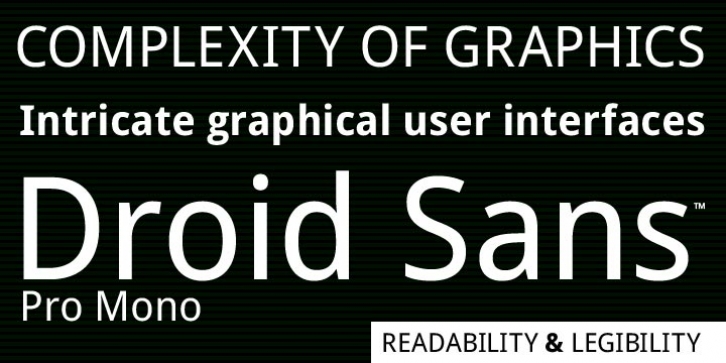
Publisher: Ascender
Droid Sans Mono Pro was designed by Steve Matteson and published by Ascender. Droid Sans Mono Pro contains 2 styles.
Droid Sans Pro Mono is a humanist sans serif typeface designed by Steve Matteson, Type Director of Ascender Corp.
Droid Sans Mono features a fixed width (non-proportional) which is useful for developers to see code in a tabular setting and for viewing emails and other screens.
Droid Sans is an approachable, friendly set of typefaces optimized for display on screen. Droid Sans Mono was designed to provide optimal quality and legibility. It features upright stress, open forms and a neutral appearance. Droid Sans Mono was optimized for user interfaces and to be comfortable for reading on a mobile handset in menus, web browser and other screen text.
The Droid Sans Pro Mono Regular font contains Old Style Figures (requires an application that support advanced OpenType typographic features) and extensive character set coverage including Western Europe, Eastern/Central Europe, Baltic, Cyrillic, Greek and Turkish support.